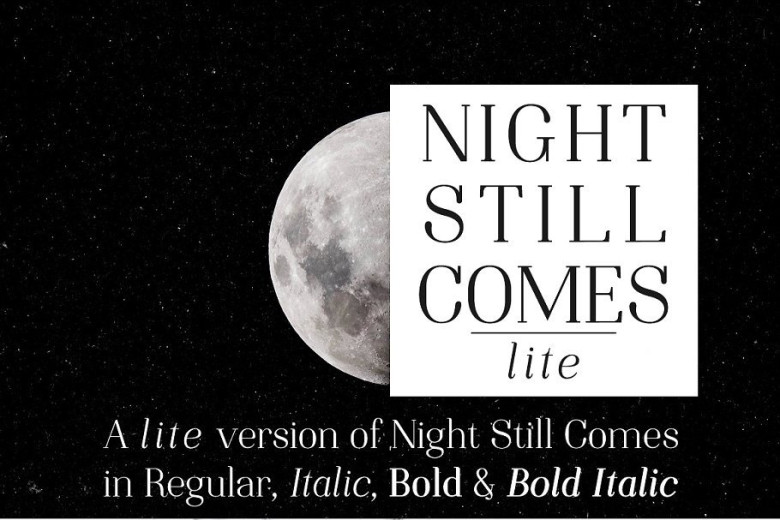
Night Still Comes Lite Serif Font
A modern serif font that mixes the modern and classic. This is the interpretation of a beauty, fashion & editorial serif typeface. Introducing Night Still Comes Lite. Its designed and shared by Ana’s Fonts. This is a lighter version of Night Still Comes, with 224 glyphs. Night Still Comes is a great font for logos and branding, editorial use, in titles and subtitles, quotes, postcards, invitations, etc.